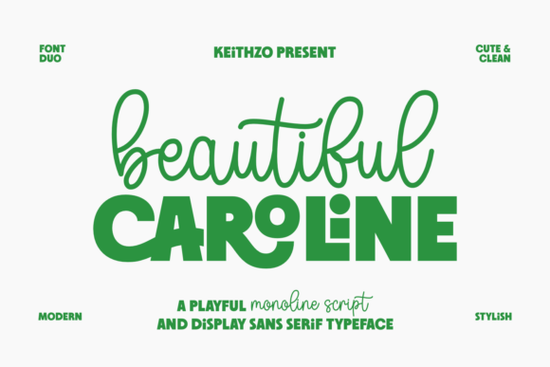
Looking for a font that feels both warm and polished? Beautiful Caroline Font delivers exactly that effortless charm with a modern edge. It’s not just a single typeface, but a thoughtful duo: a flowing monoline script paired with a bold, playful display sans. Together, they create a balanced look that works well across branding, social media graphics, packaging, and print-on-demand designs.
What makes Beautiful Caroline stand out?
The script version has a handcrafted feel gentle curves, consistent line weight, and natural rhythm. It reads like a handwritten note from a friend who also happens to be a designer. The matching display sans adds contrast with its geometric structure and quirky details. Think of it as the confident friend who balances out the dreamy one.
This combination is ideal if you're tired of fonts that either feel too stiff or too casual. With Beautiful Caroline, you get something that feels personal yet professional perfect for small businesses, Etsy sellers, and creative hobbyists who want their work to feel authentic and put-together.
Where can you use this font duo?
- Branding & logos: Use the script for your business name and the display font for taglines or secondary text.
- Social media content: Create on-brand posts that feel friendly without sacrificing clarity.
- Printables & stationery: Ideal for invitations, planners, and gift tags with a touch of personality.
- Merchandise: Great for T-shirts, mugs, and tote bags where you want something stylish but not overly trendy.
You’ll notice how well the two styles complement each other. The script flows naturally, while the display font holds its ground in larger sizes. This balance makes it easier to maintain visual hierarchy especially important when designing for digital screens or printed materials.
How does it compare to similar fonts?
If you’ve used fonts like Wiggle Whistle or Jelly Puff, you know what a playful, expressive style can do. But those tend to lean more toward whimsy. Beautiful Caroline keeps that fun energy while feeling more refined. It’s less “cartoonish” and more “thoughtfully designed.”
For those who love the boldness of Super Sport Bundle but want something softer, this is a great alternative. And unlike many distressed or grungy fonts, it doesn’t feel worn-out it feels intentional and clean.
Why designers choose this font pair
It’s not just about looks. The pairing works because of consistency. Both fonts share a similar rhythm and spacing, so they don’t clash even when used side by side. That means less time adjusting kerning and more time creating.
Plus, it’s versatile. You can use the script alone for elegant quotes or the display font for headlines. When used together, they form a cohesive system something brands and creators value when building a recognizable identity.
Final thoughts: Is it right for your project?
If you’re looking for a font that blends softness with strength something that feels handmade but still professional Beautiful Caroline is worth trying. It fits well in categories like display fonts, hand-drawn typography, and modern calligraphy.
It’s especially useful if you’re working on projects that need to feel personal but still look polished. Whether you’re designing for a boutique brand, a wedding invitation, or a digital product, this duo offers reliable results with minimal fuss.